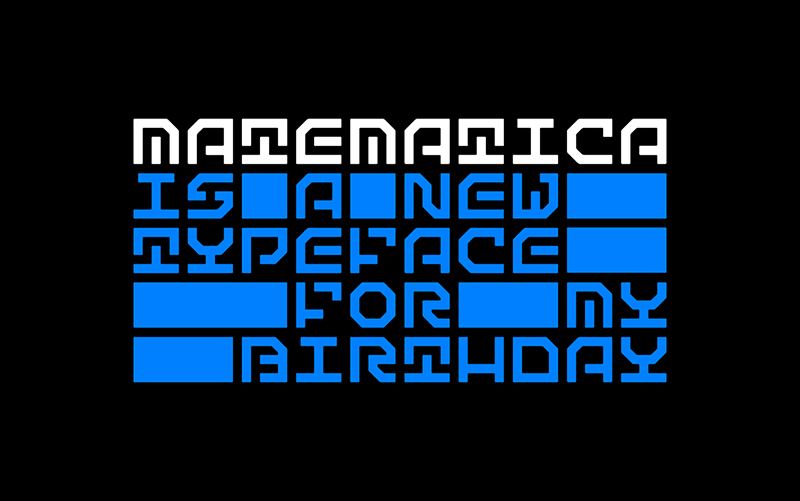
Font name: | Matematica |
Author: | Akos Polgardi |
Note by Akos Polgardi | |
Matematica is a rounded, unicase, mono-spaced, pseudo-bitmap typeface constructed on a 5-by-5 grid. Relying on the most basic geometric shapes, the typeface draws heavily on the work of Dutch typographer, Jurriaan Schrofer (1926–1990). |